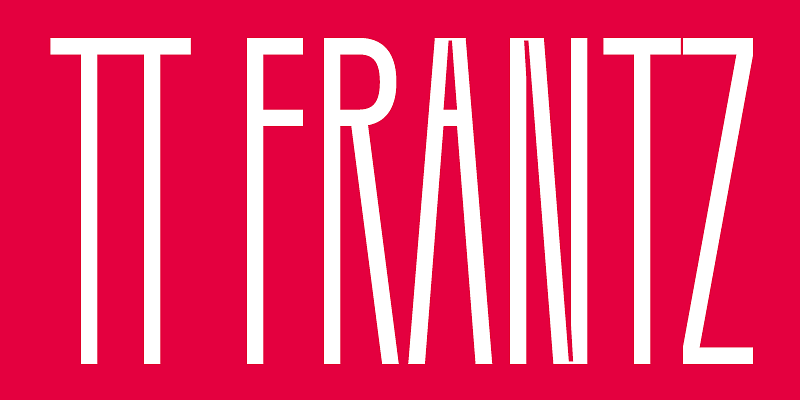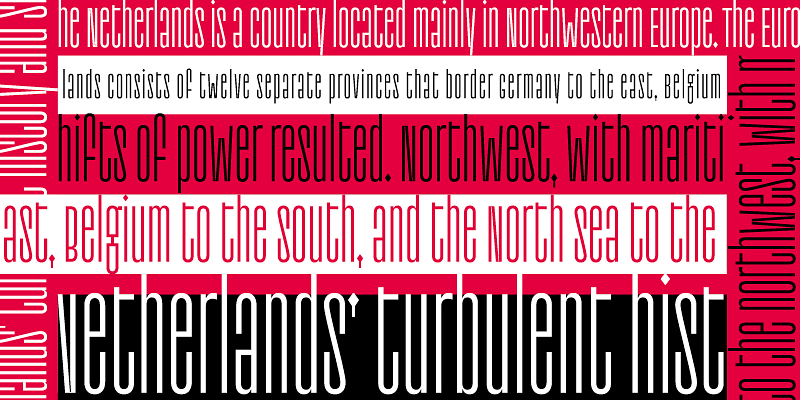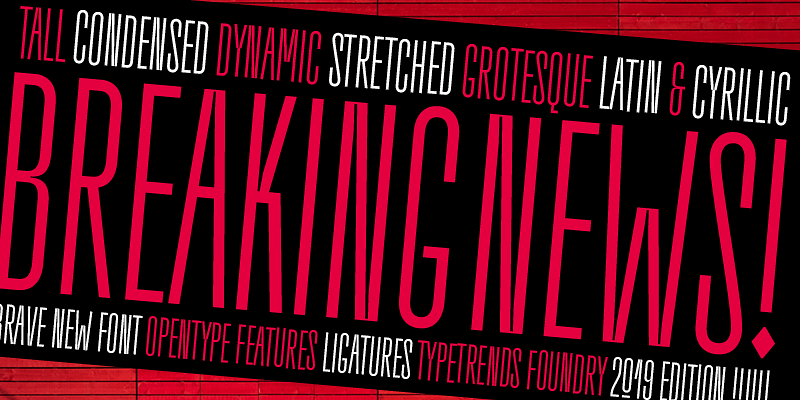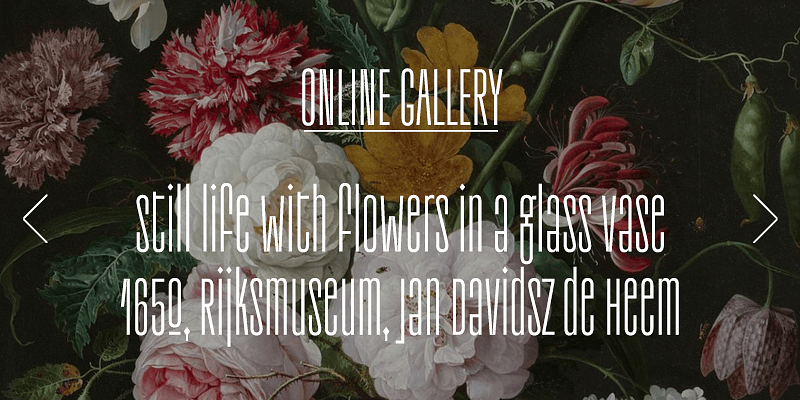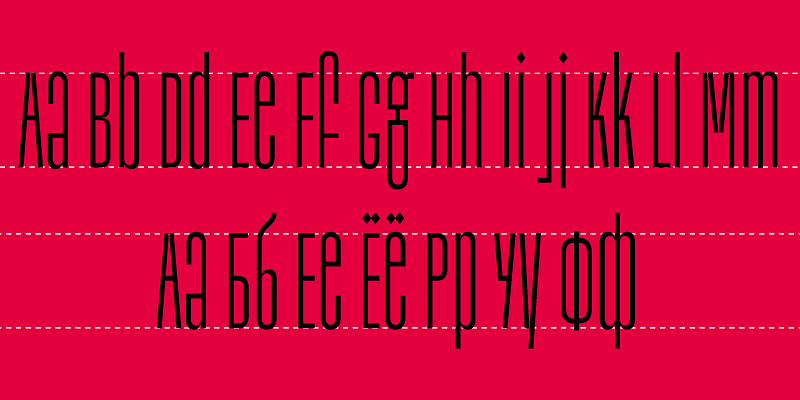
TT Frantz is an experimental font, distinguished by its slimness and lightness. In TT Frantz, you can find small references to the art deco aesthetics, which are expressed in significantly lowered or, conversely, heightened waist of the letters. In order to preserve the main feature of the font—the change in the height of the main line—we made lowercase characters as tall as uppercase ones, but at the same time we kept small kerns.